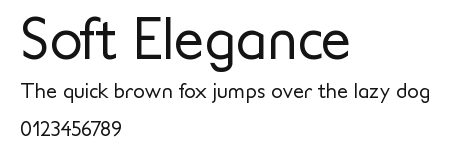
Soft Elegance Preview
• Font Name: Soft Elegance
• Full Font Name: Soft Elegance
• Copyright: Douglas Charles Cunha
• Designer: Douglas Charles cunha
• Description: based in Petita font
About Soft Elegance.ttf
Soft Elegance.ttf is a modern, elegant sans-serif font designed for ultimate readability and visual harmony. Perfect for branding, headlines, web design, and print materials.